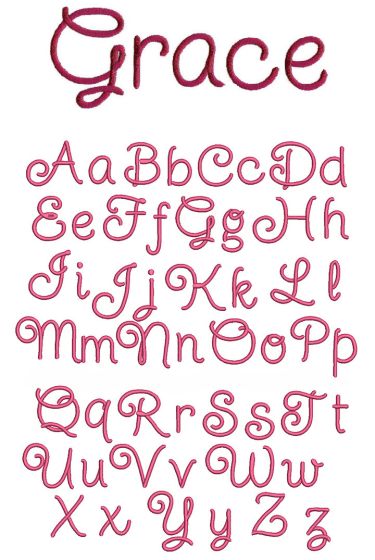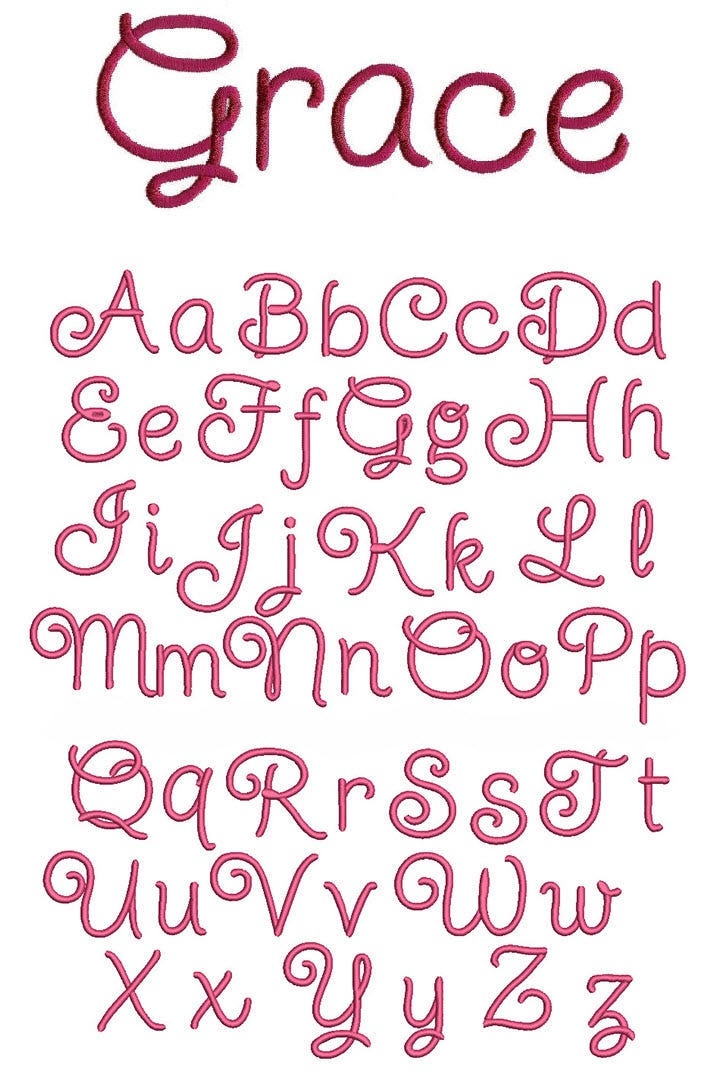
Starlight Starbright Satin Stitch Embroidery Font
Here is an adorable script alphabet that is perfect for personalizing your projects. Use to make names or monograms and whip up something elegant and sweet for that someone special.  All of our font alphabets are 100% manually digitized to bring you maximum stitch quality.